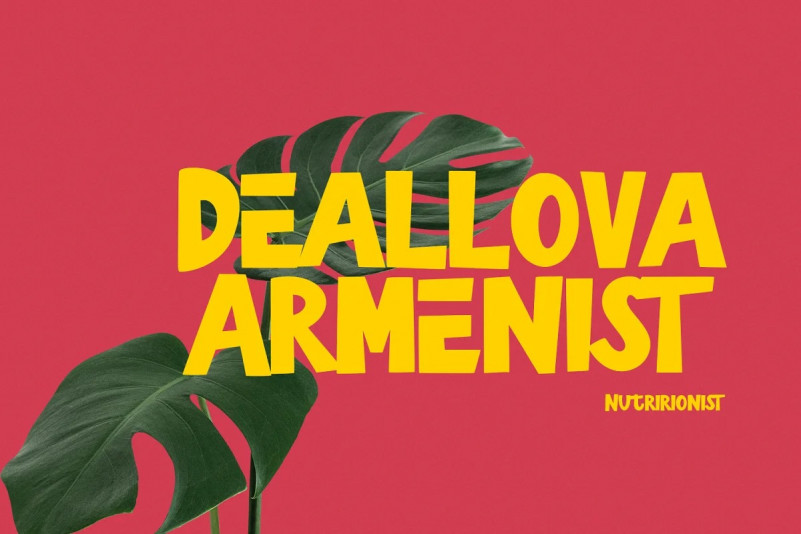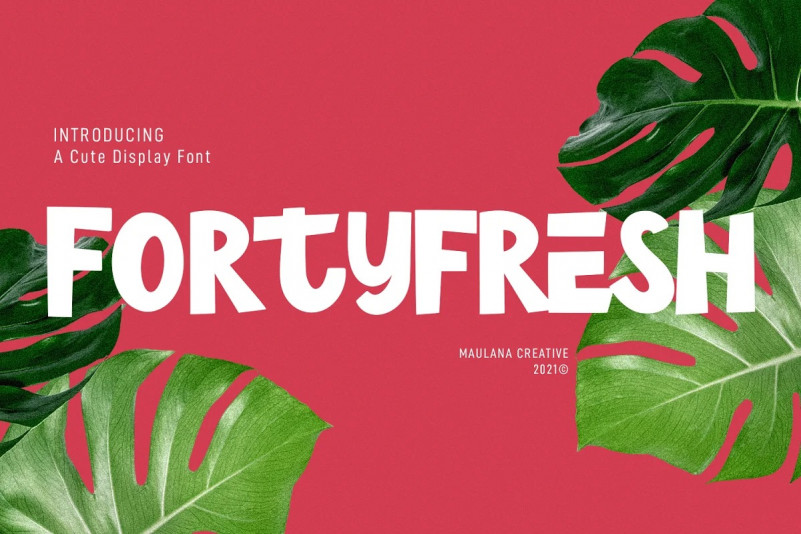
Fortyfresh Font
Fortyfresh Display Font is a quirky handwritten display font. With bold stroke, upright and fun character with a bit of ligatures and lower alternate. To give you an extra creative work. Fortyfresh font support multilingual more than 100+ language. This font is good for logo design, Social media, Movie Titles, Books Titles, a short text even a long text letter and good for your secondary text font with sans or serif. Make a stunning work with Fortyfresh font.